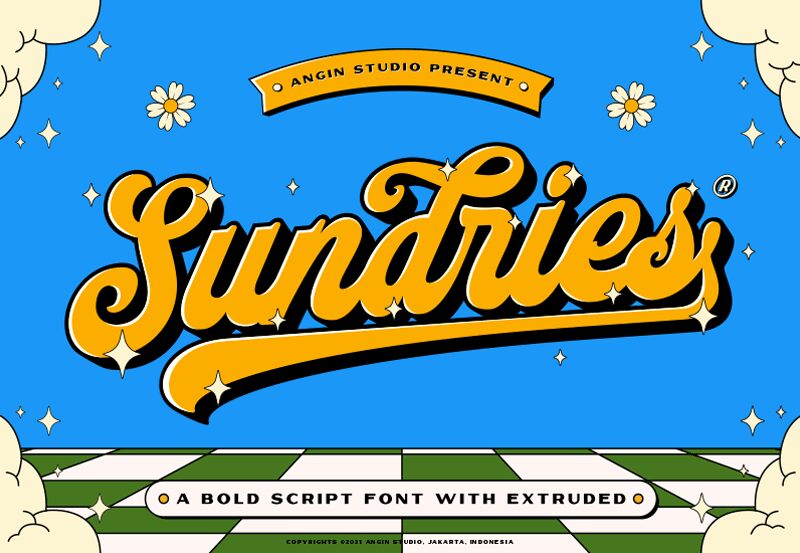
Sundries Script is a vintage script font designed by Angin Studio. Its perfect for projects needing an eye-catching, yet elegant look. It's suitable for logos, labels, posters, wedding invitations and more.